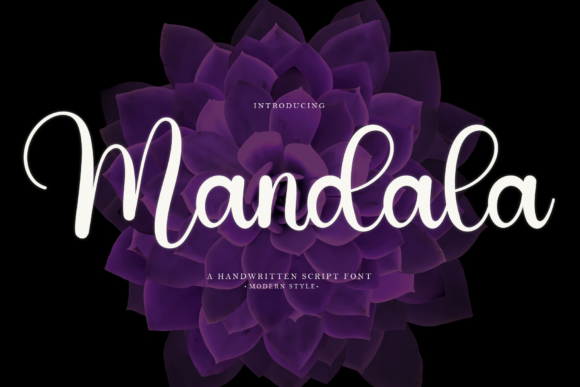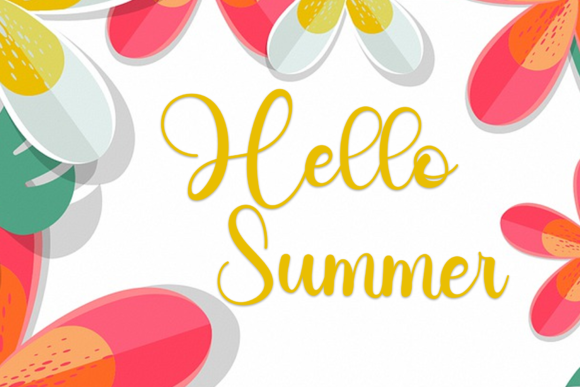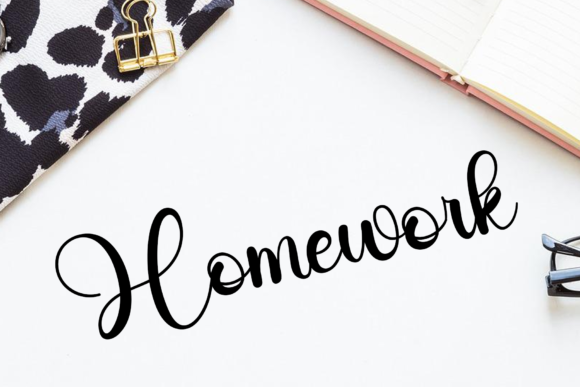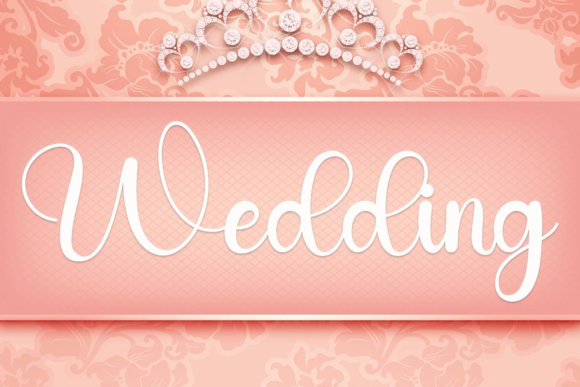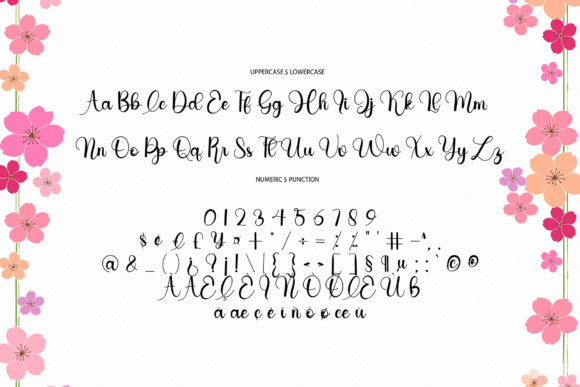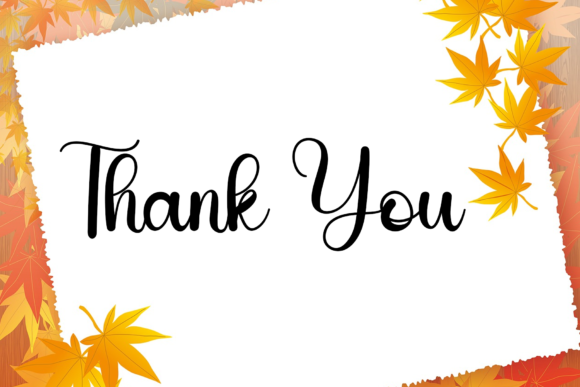
Mandala Font
About Mandala Font
Mandala, a delicate handwritten font, is meticulously crafted to bring a cool and unique design to your creative projects. This versatile font can be employed for various purposes, including writing letters, designing invitations, labeling food products, creating captivating titles, and more.
The delicacy of Mandala’s design sets it apart, adding a touch of finesse to each character. This handwritten font becomes a canvas for your creative expression, allowing you to infuse your designs with a unique and cool aesthetic.
Picture Mandala gracing letters or invitations, where each stroke becomes a piece of art. The delicate nature of the font imparts a personal touch, transforming your correspondence into a visually appealing and memorable experience.
In the realm of food products, Mandala becomes a standout choice for labeling. The cool and unique design of the font enhances the overall presentation, making your products visually appealing and distinctive on the shelves.
Crafting titles with Mandala elevates your design projects. Whether it’s for a blog, website, or any creative endeavor, the delicate handwritten style adds a touch of personality and charm. The cool and unique design of Mandala ensures that your titles capture attention.
The versatility of Mandala extends to various design contexts, making it a valuable tool in your creative toolkit. Its delicate and cool aesthetic allows it to adapt seamlessly to different projects, adding a layer of creativity and uniqueness.
As you utilize Mandala in your creative ventures, may its delicate handwritten charm inspire you to explore the cool and unique possibilities it offers. Whether you’re working on letters, invitations, food labels, titles, or any other project, let Mandala be the element that brings a touch of finesse and creativity to your designs.